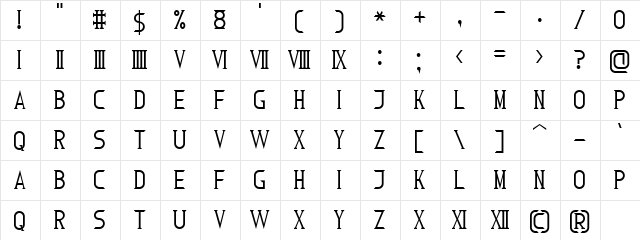
Roman Font 7 Regular
| Foundry | Style-7 |
| Designer | Sizenko Alexander-7 |
Design Context for Roman Font 7 Typeface
Roman Font 7 offers clean, dependable letterforms without strong stylistic allegiance, making it a practical choice for designers who need flexibility.